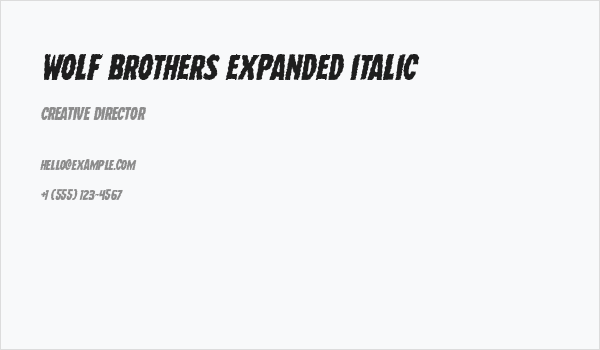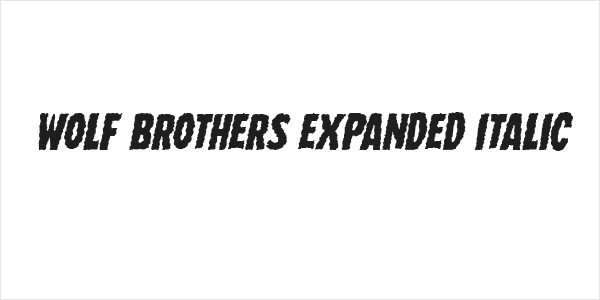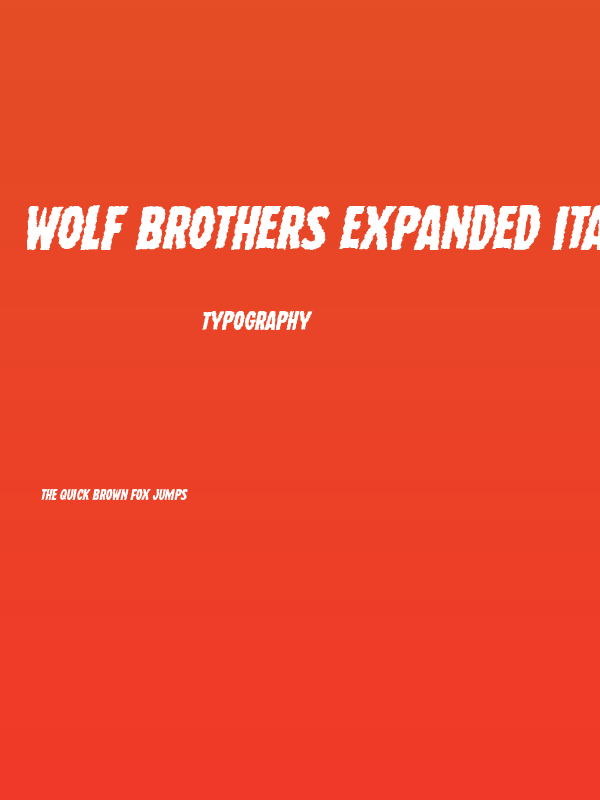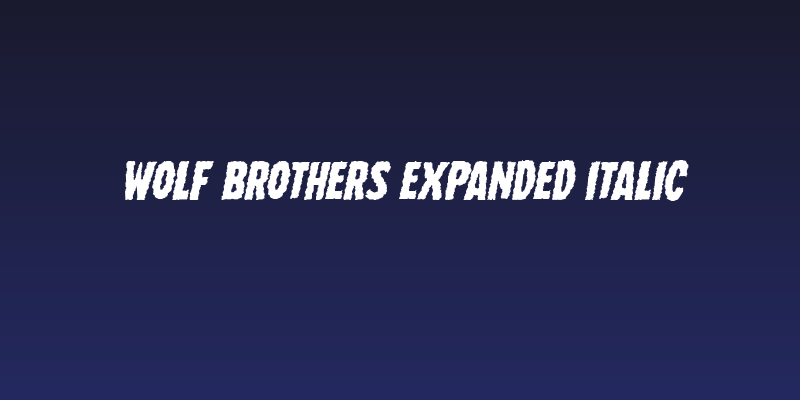
Wolf Brothers Expanded Italic Font
Wolf Brothers Expanded Italic Description
This font features a bold and dynamic style with an italic slant, giving it a sense of movement and energy. The characters are heavily textured, resembling a brush or paint stroke effect, which adds a rugged and artistic flair. The expanded width of the letters enhances its bold appearance, making it stand out prominently. The font's design is consistent across uppercase, lowercase, numbers, and special characters, maintaining a cohesive look. Its unique style is suitable for projects that require a strong visual impact.
| Proposed Projects | Ideal for posters, album covers, branding, and any design needing a bold, artistic touch. |